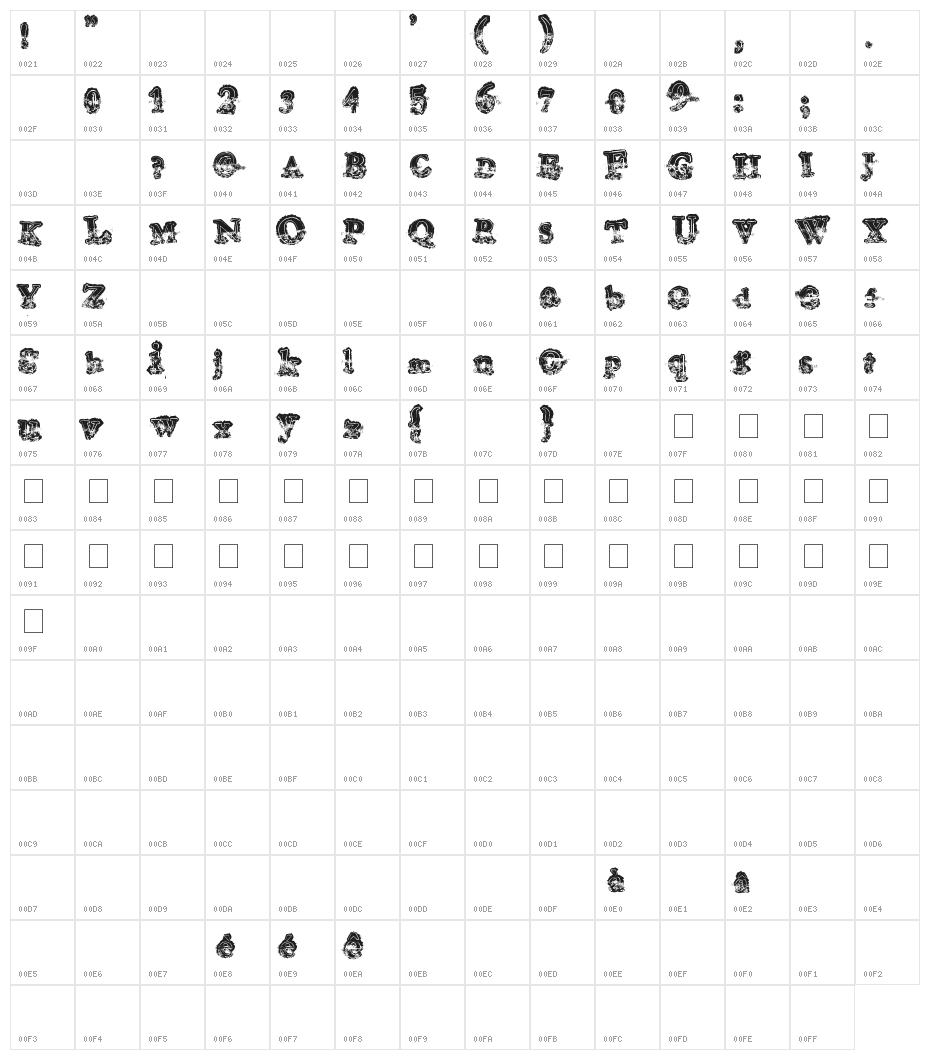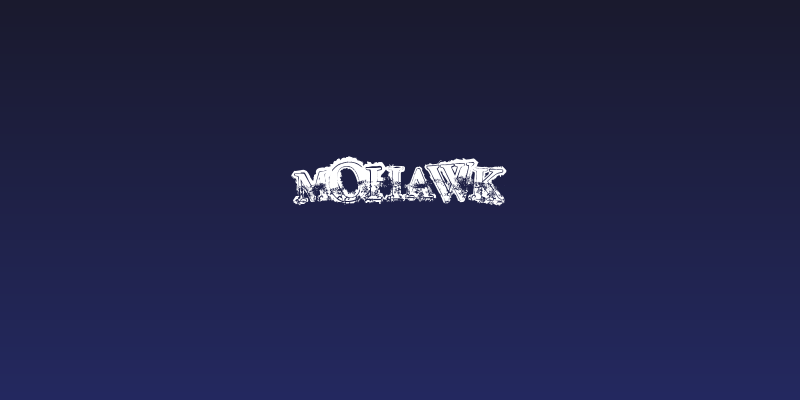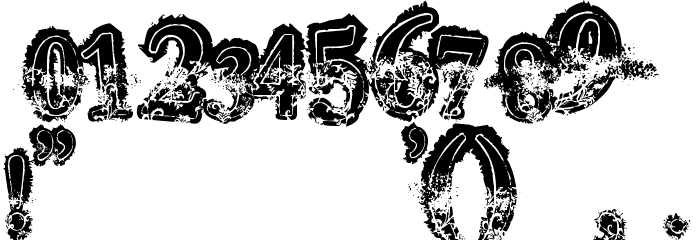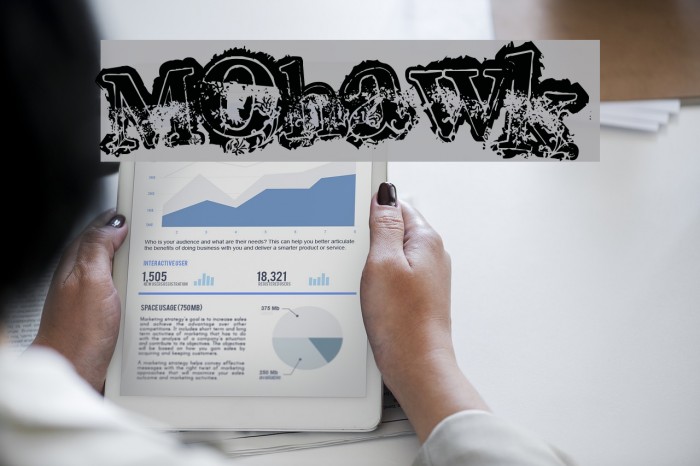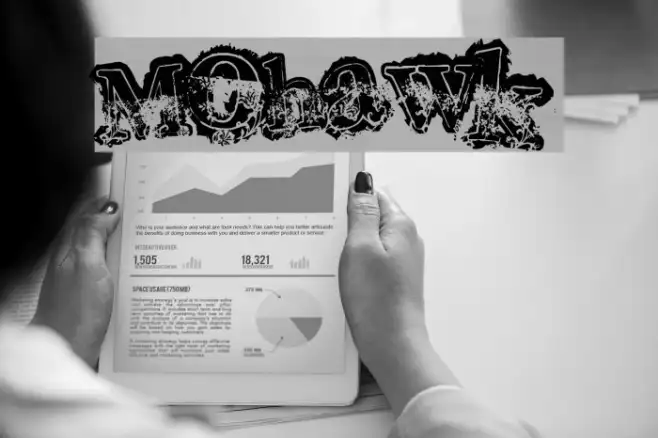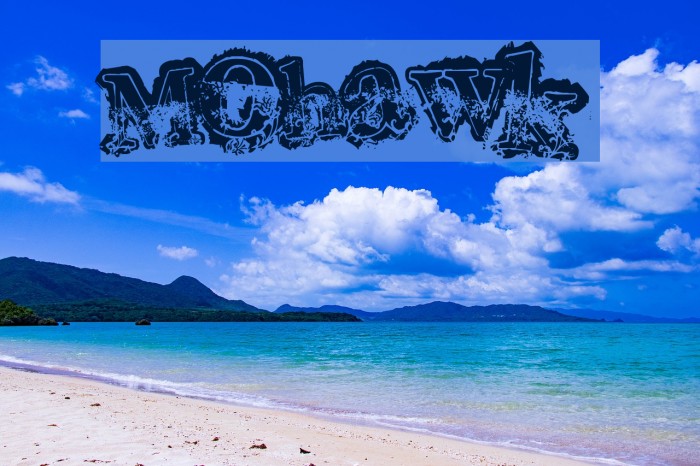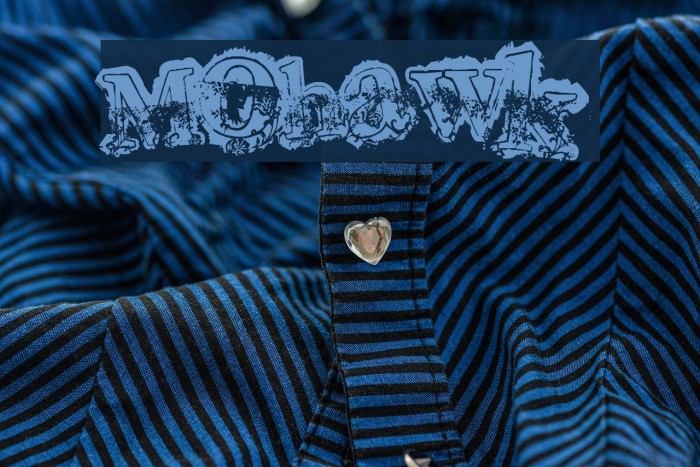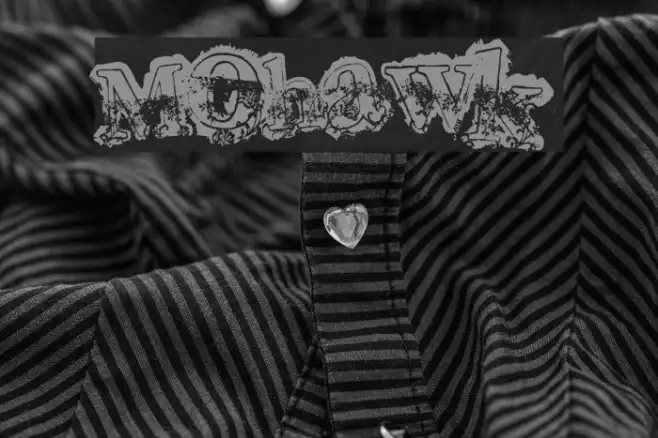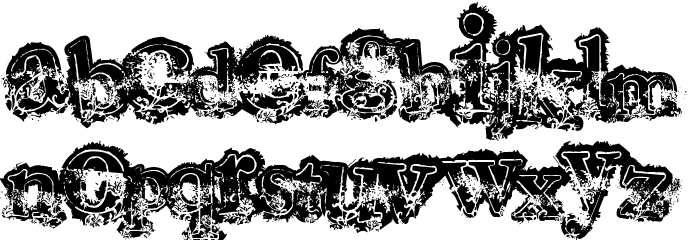
Mohawk Font
Mohawk Description
This font features a bold and distressed style, giving it a rugged and edgy appearance. The characters are heavily textured, with a grunge effect that makes them appear weathered and worn. The uppercase and lowercase letters maintain a consistent design, with thick strokes and rough edges that add to the overall distressed look. Numbers and special characters follow the same design principles, ensuring a cohesive appearance across all glyphs. This font is ideal for projects that require a bold statement or a vintage, rebellious aesthetic.
| Overall Style | Grunge, Edgy, Vintage |
| Use Case | Headlines, Posters, Branding |
| Proposed Projects | Ideal for album covers, posters, apparel design, and branding that requires a bold, edgy look. |